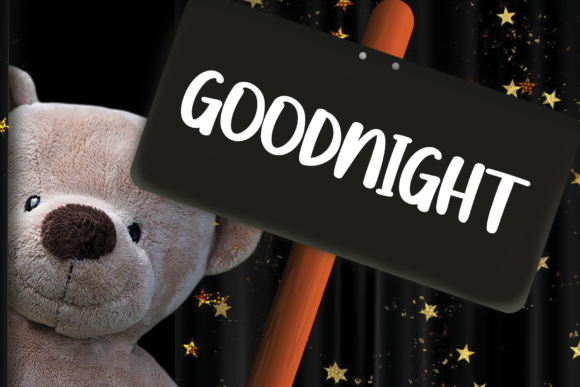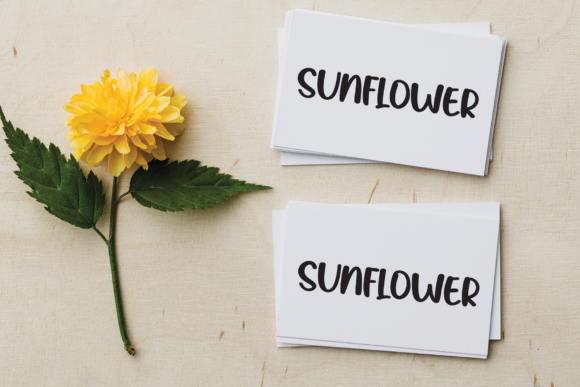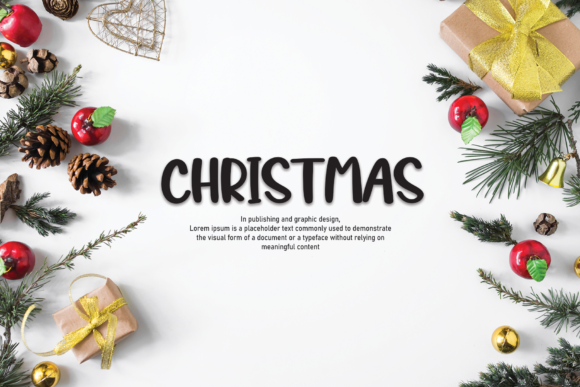
Introduction to Sea Shells Font
Have you ever found yourself captivated by the intricate designs of sea shells on a beachy vacation? The way they shimmer in the sunlight, their delicate patterns and shapes a testament to the beauty of nature. As a designer, I’m sure you’ve experienced a similar moment of inspiration, where the world around you sparks a creative idea. For me, that moment led to the discovery of the enchanting Sea Shells Font, a high-quality design resource that has become a staple in my creative project arsenal.
With its playful and stylish aesthetic, Sea Shells Font is perfect for designers looking to add a touch of whimsy to their work. Whether you’re working on a professional branding project or a casual design for social media, this font is sure to bring a smile to your client’s face. And the best part? It’s available for free download, complete with a transparent background, making it easy to integrate into any design.
Key Features of Sea Shells Font
- Unique characteristics include hand-drawn elements and intricate details, perfect for adding a touch of elegance to any design
- Perfect for use in a variety of creative projects, including invitations, posters, and digital art
Honest Review: Sea Shells Font
As a designer, I’m always on the lookout for high-quality design resources to elevate my creative projects. The Sea Shells Font caught my eye with its unique, hand-drawn style and I decided to give it a try.
Here are some things that work well with this font:
- ✨ Unique and creative design: The Sea Shells Font is perfect for adding a touch of whimsy to your projects.
- ✨ High-quality design: The font is well-crafted and looks great even at smaller sizes.
- ⚠️ Limited character set: The font only includes a limited set of characters, which may not be suitable for longer text blocks.
- ⚠️ Transparent background: Be careful when using the font on transparent backgrounds, as the design may not show up well.
Overall, I’m impressed with the Sea Shells Font and would recommend it to designers looking for a unique and creative font to add to their toolkit. Just be aware of its limitations and use it judiciously in your projects.
How to Use Sea Shells Font
The Sea Shells Font is a unique and beautiful design resource perfect for creative projects. With its high-quality design and transparent background, this font is ideal for adding a touch of elegance to any project.
Tips for Getting the Most Out of Sea Shells Font
To get the most out of the Sea Shells Font, use it sparingly and in combination with other design elements to create a visually appealing design. Experiment with different font sizes and colors to add depth and interest to your project.
The Sea Shells Font is perfect for a variety of creative projects, including:
- Birthday invitations
- Wedding stationery
- Food labels
- Stationery and greeting cards